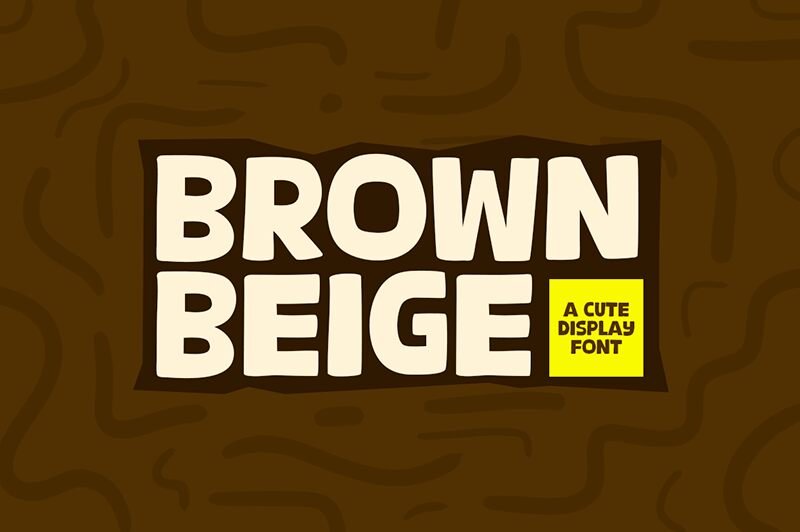
Brown Beige
Brown Beige font by Khurasan captivates with its bold, cartoonish display style. The thick lettering commands attention, making it an excellent choice for playful and eye-catching designs. As a free font, Brown Beige offers both creativity and accessibility, inviting designers to download and experiment without constraints.
This font is perfect for projects requiring a lively and whimsical touch—think children’s book covers, party invitations, or vibrant posters. Its exaggerated features give it a distinct personality that stands out in any composition. Download Brown Beige to bring your creative visions to life with this unique display font.